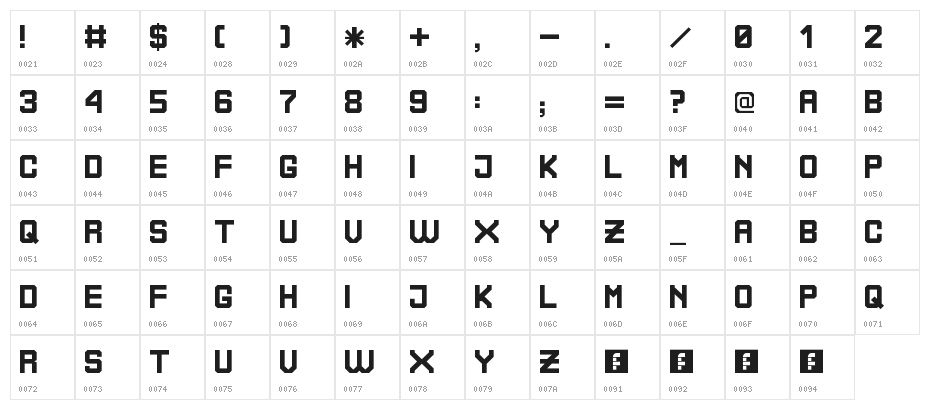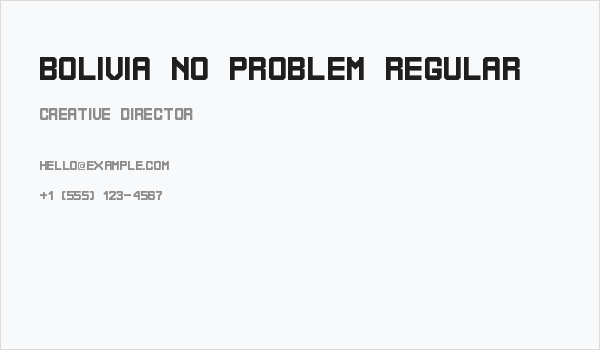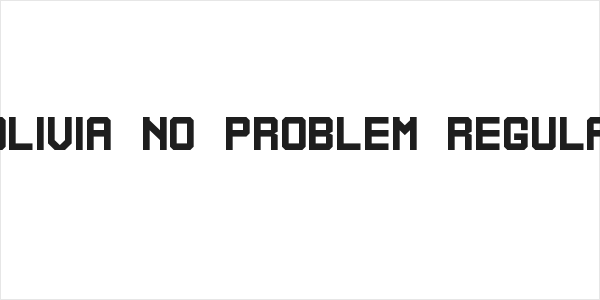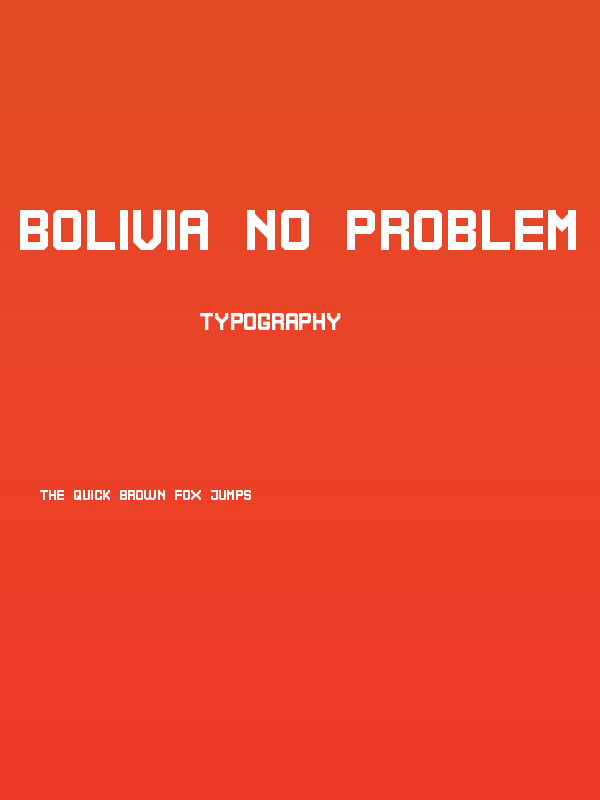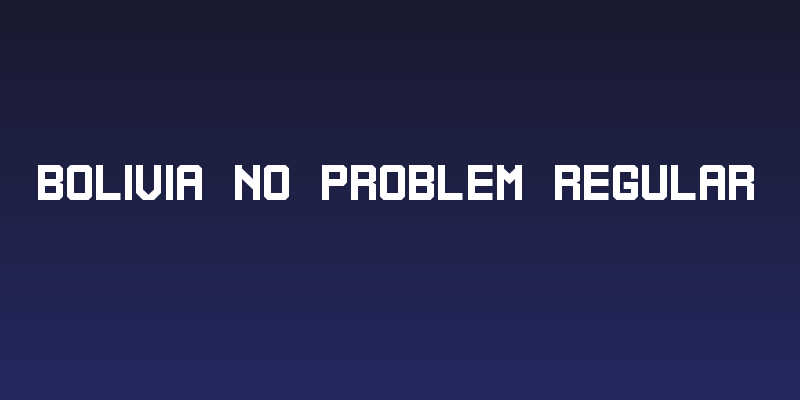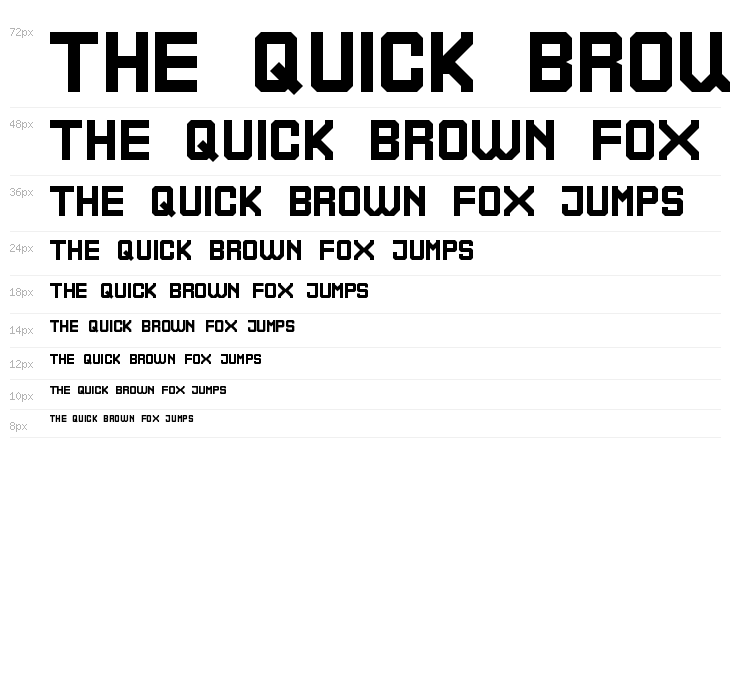
Bolivia No Problem Regular Font
Bolivia No Problem Regular Description
This font features a bold, geometric design with a strong, angular appearance. The characters are constructed with thick, uniform strokes, creating a robust and impactful look. The edges are sharp and precise, giving it a modern and industrial feel. The uppercase and lowercase letters maintain a consistent style, with the same width and height proportions, enhancing its uniformity. The numerals and special characters follow the same design principles, ensuring a cohesive appearance across all elements. This font's boldness and clarity make it highly legible and suitable for attention-grabbing applications.
Proposed ProjectsIdeal for branding, posters, headlines, and signage where a strong visual impact is desired.